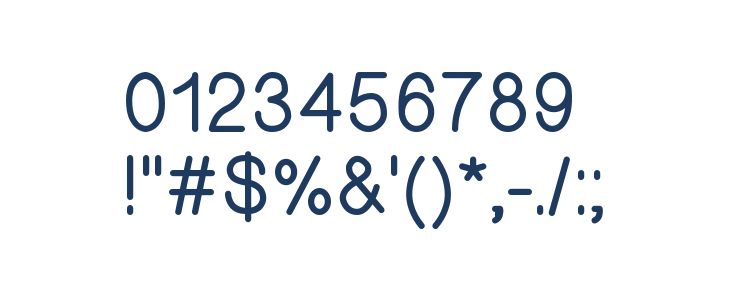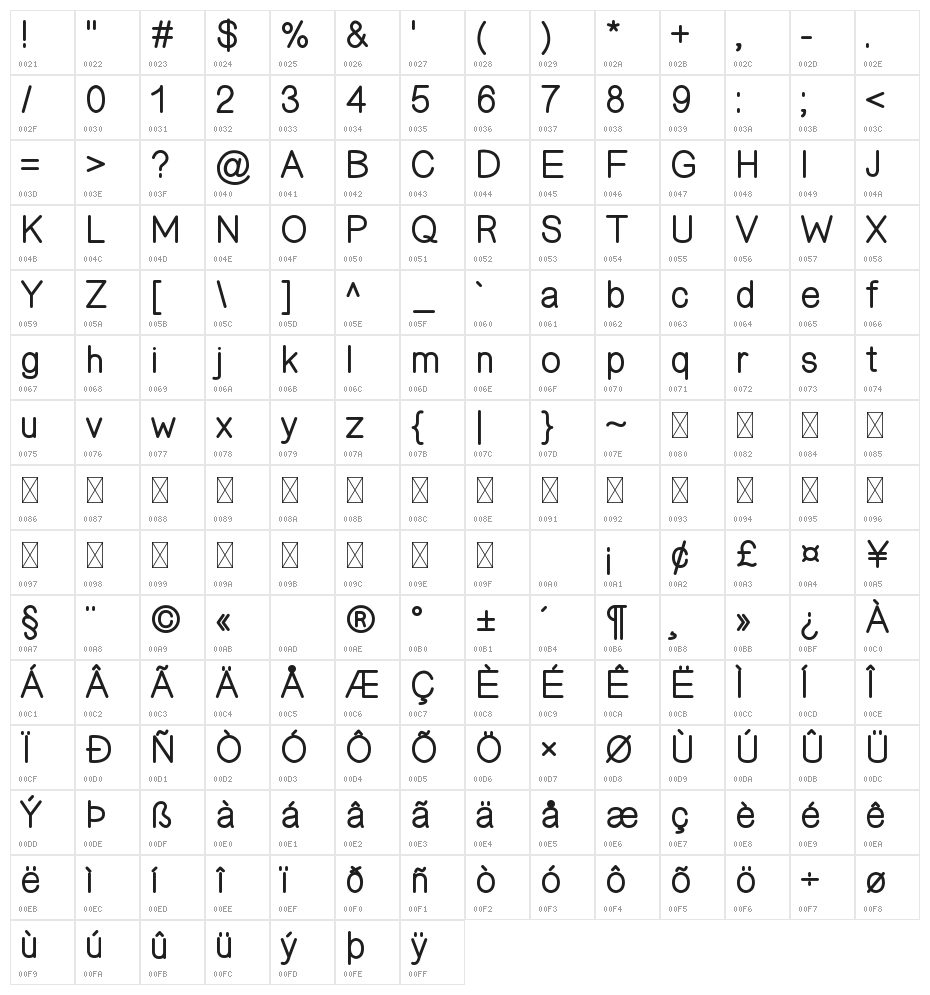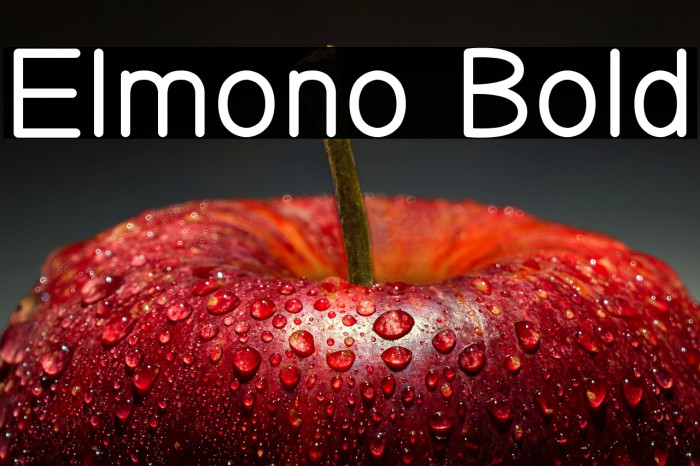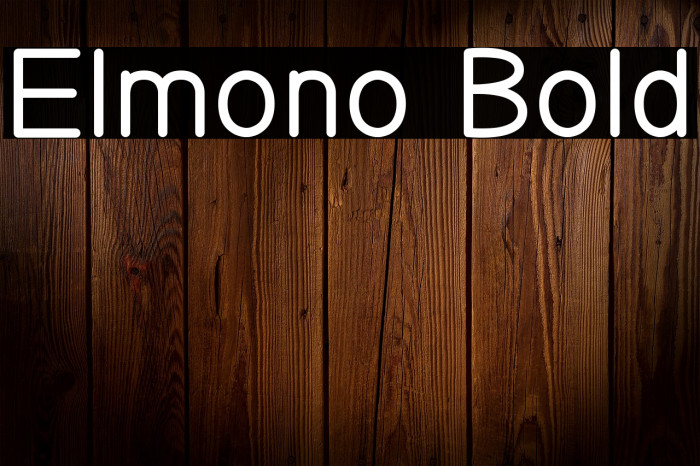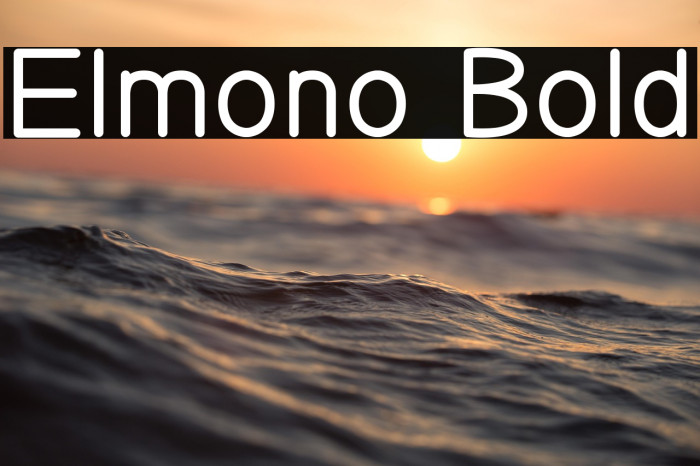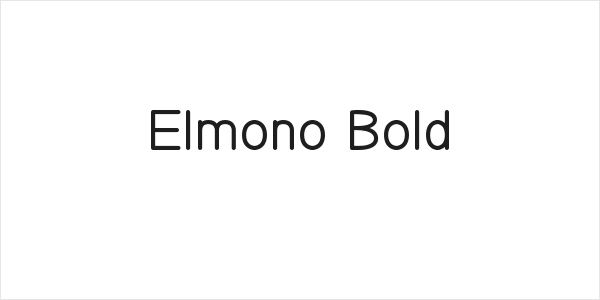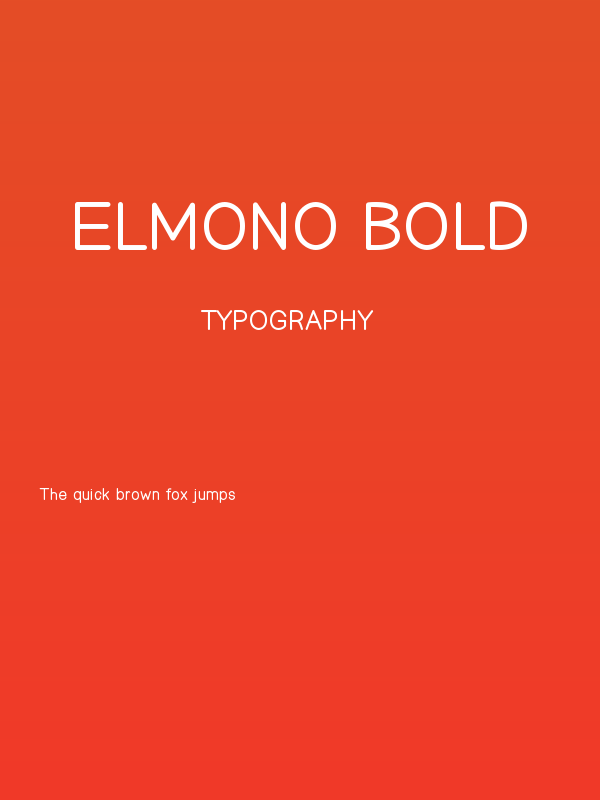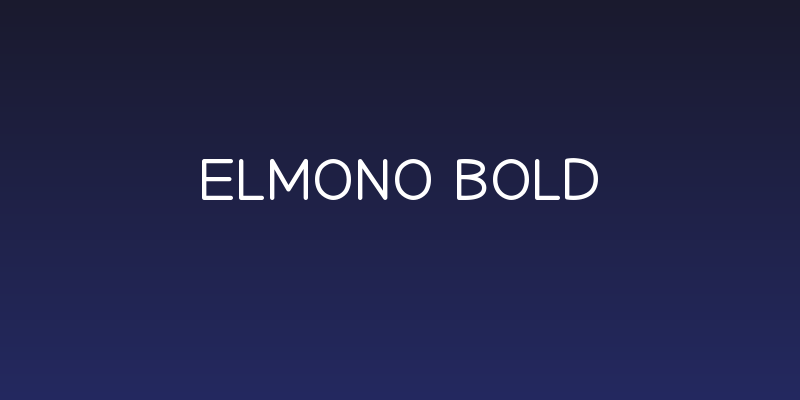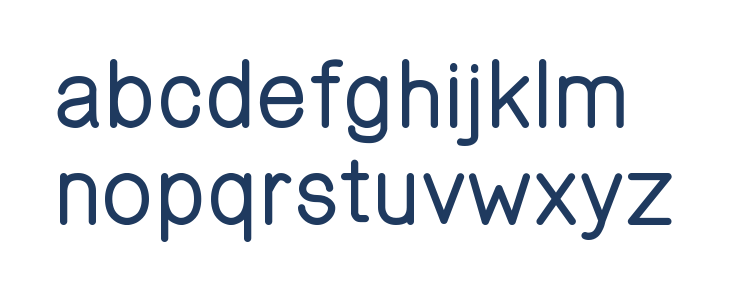
Elmono Bold Font
Elmono Bold Description
This font features a clean and modern sans-serif design with a bold weight. The characters are evenly spaced, providing a balanced and harmonious appearance. The uppercase and lowercase letters are well-proportioned, making it suitable for a variety of design applications. The numerals are clear and legible, while the special characters maintain the font's cohesive style. Its simplicity and clarity make it versatile for both digital and print media.